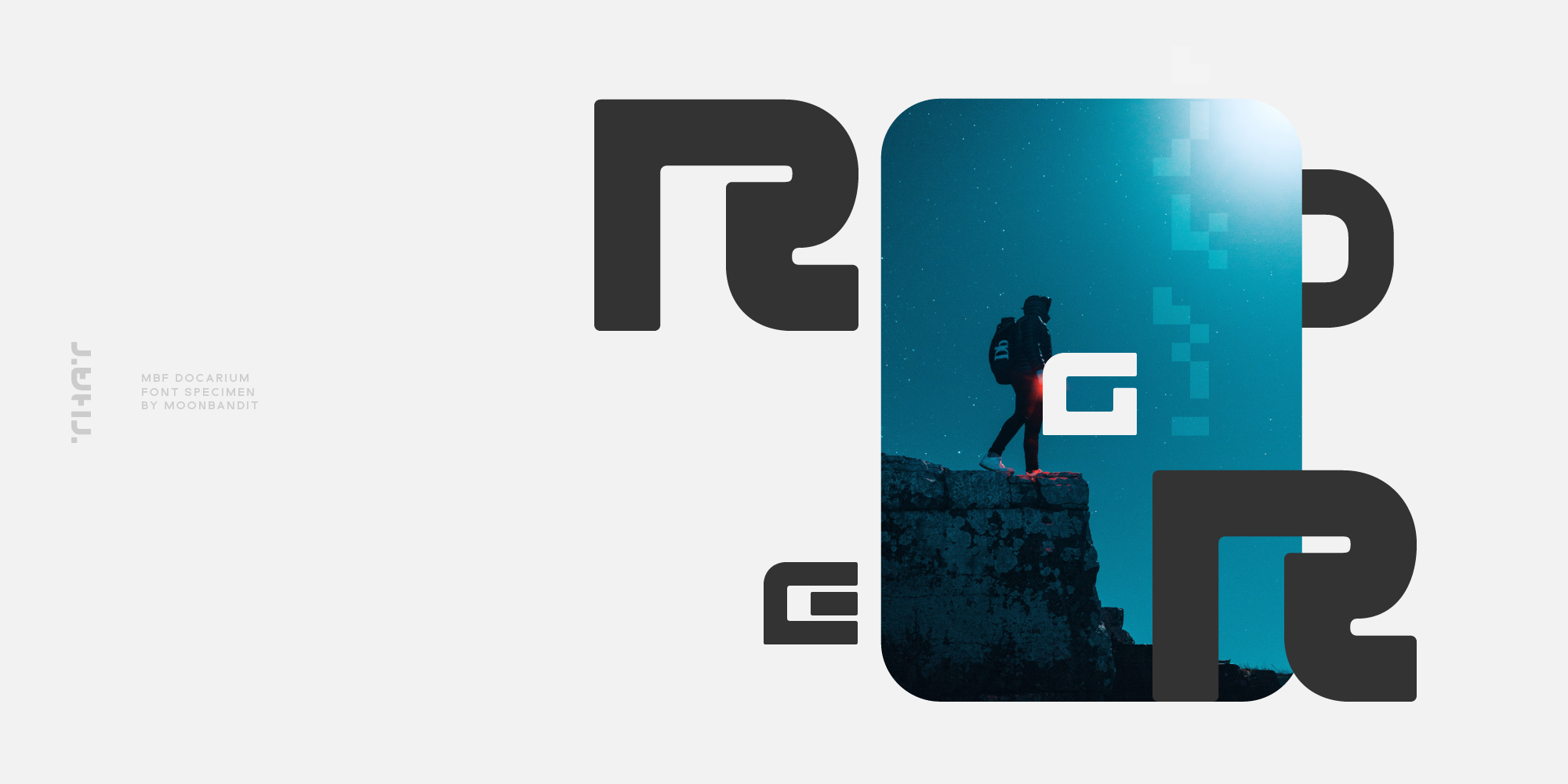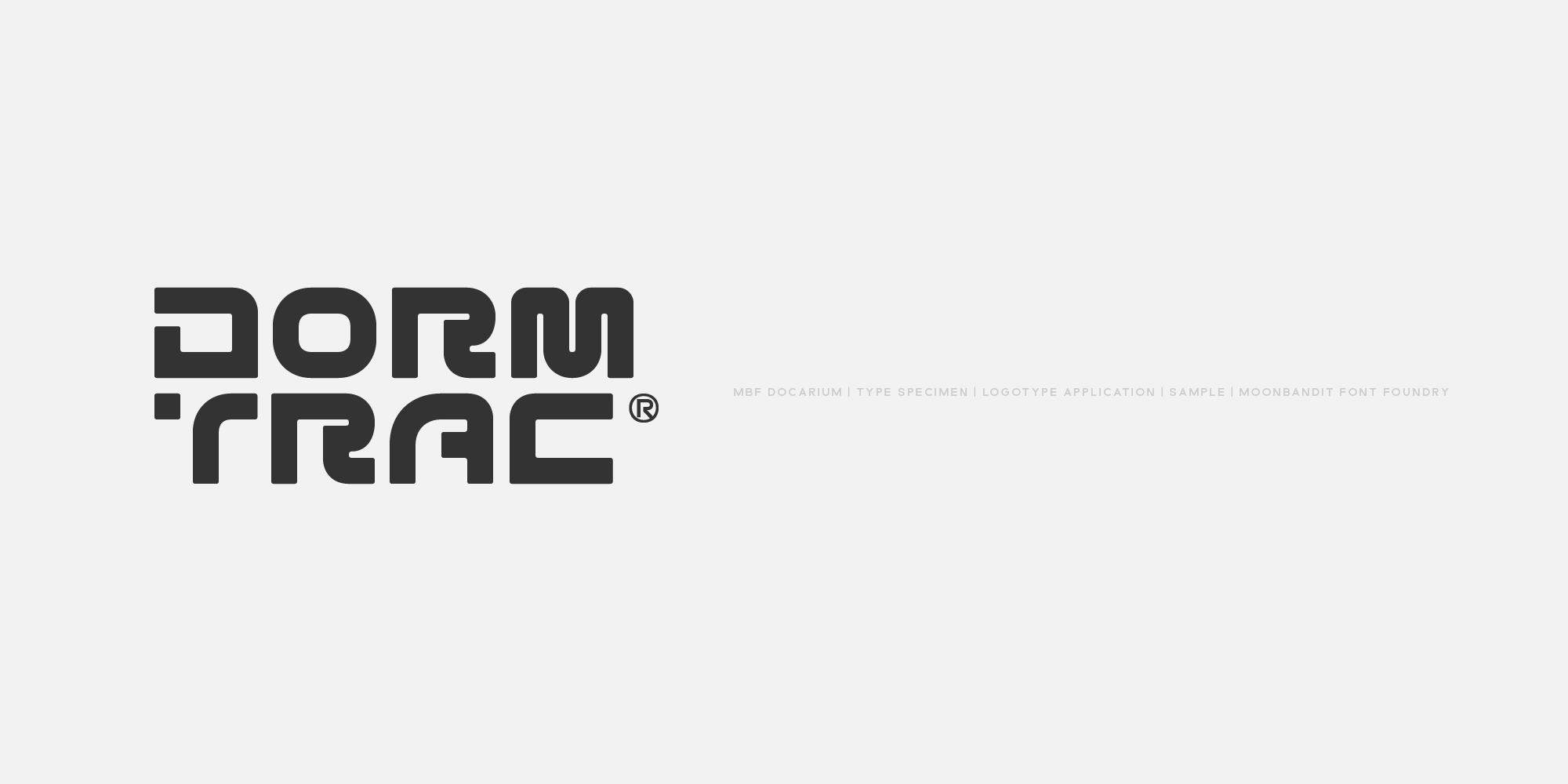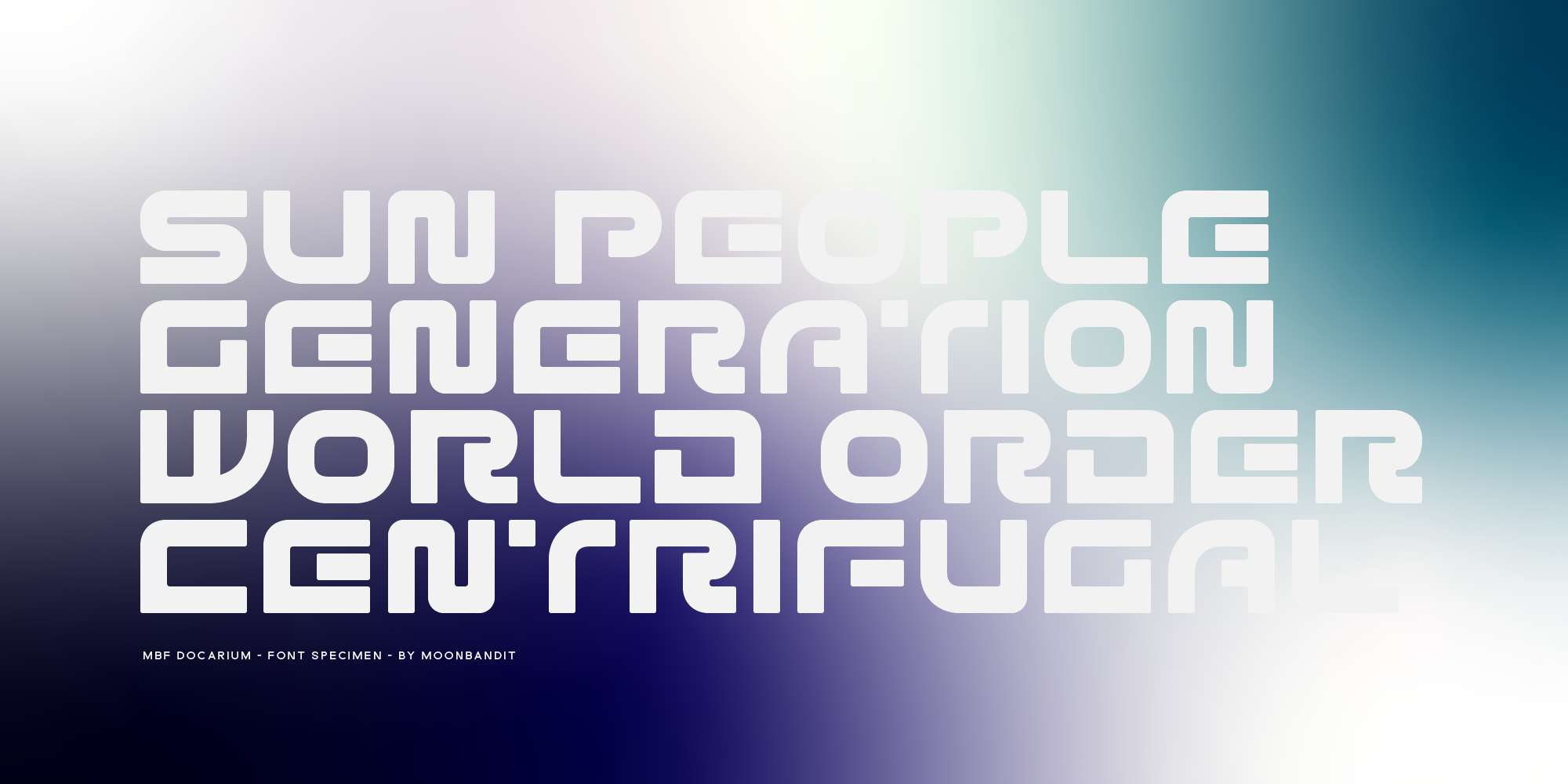
MBF Docarium
Docarium is a geometric modern minimalist sans serif display font. Wide and bold design gives this typeface a strong and dominant feel. Access the alternate glyphs by simply using uppercase and lowercase. Perfect usage includes logo, poster, display, headline, t-shirt design and many more.